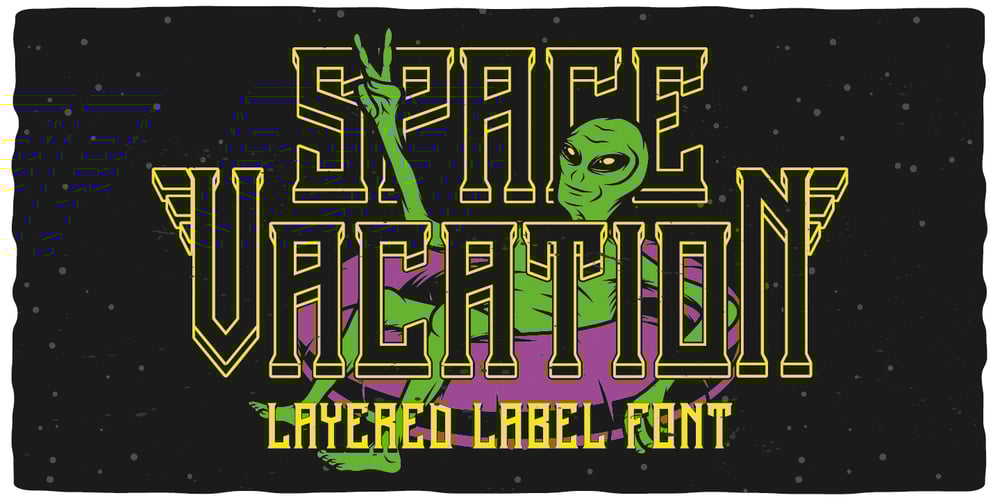
Space Vacation Font Family was designed by Oleg Voznyy and published by Vozzy. Space Vacation contains 4 styles and family package options. Introducing a vintage look label font named “Space Vacation”. It includes two styles: Base and Full, plus two effect styles: Outline and Volume. This font will good viewed on any retro design like poster, t-shirt, label, logos and more.